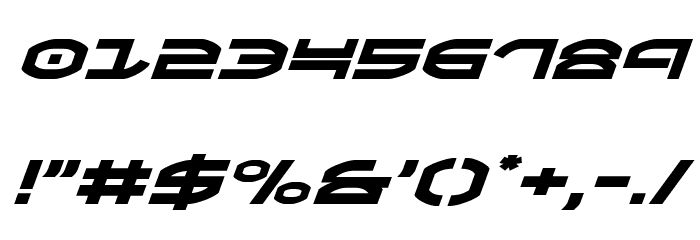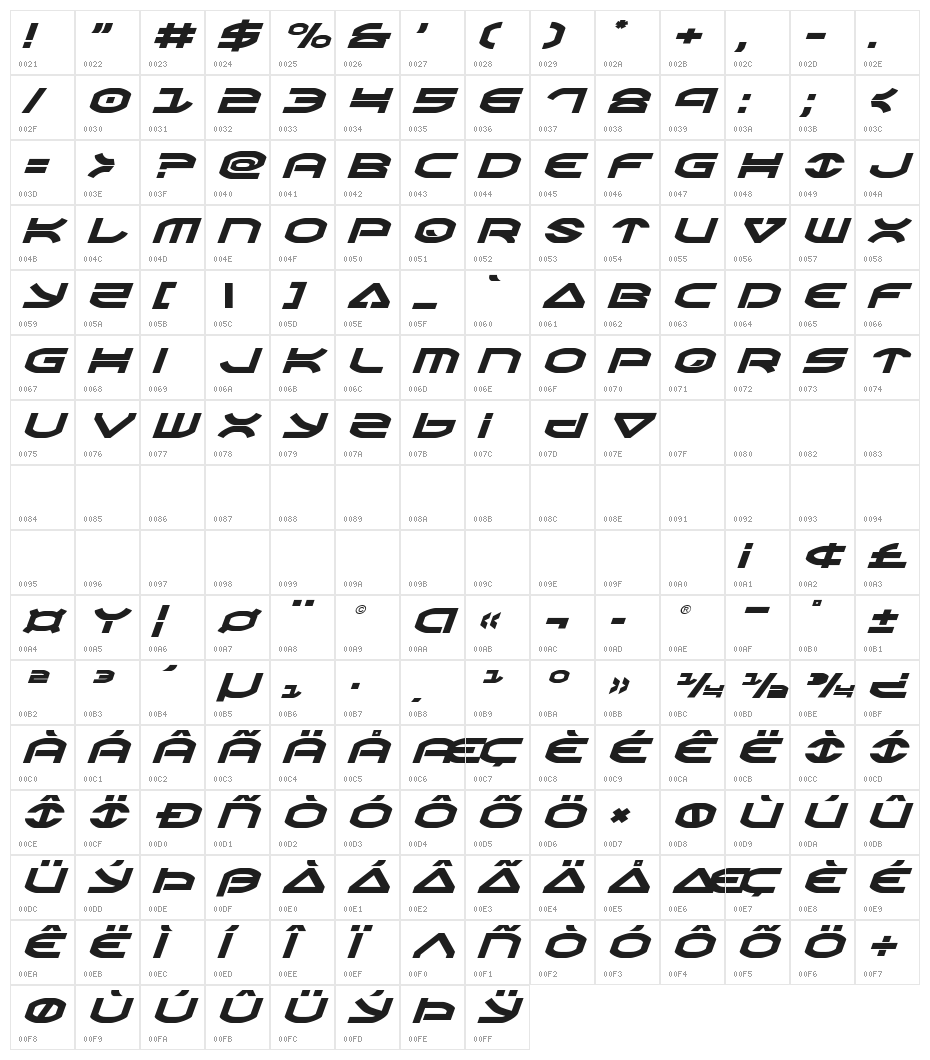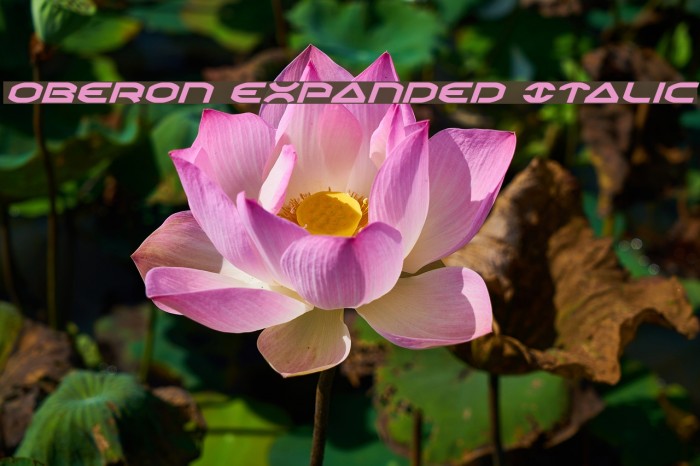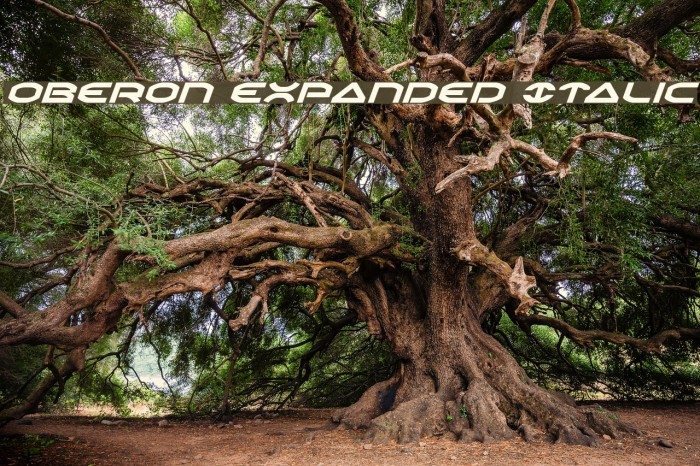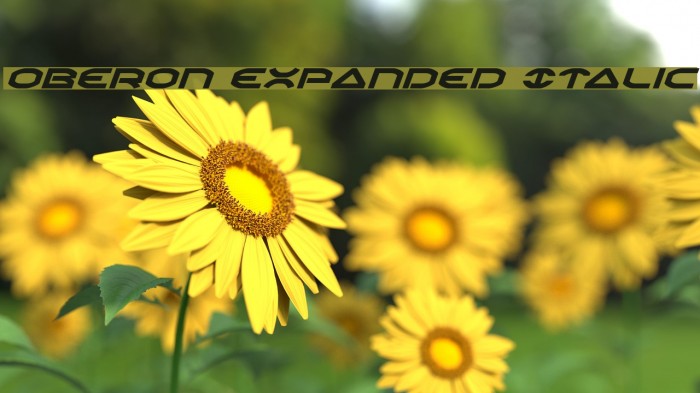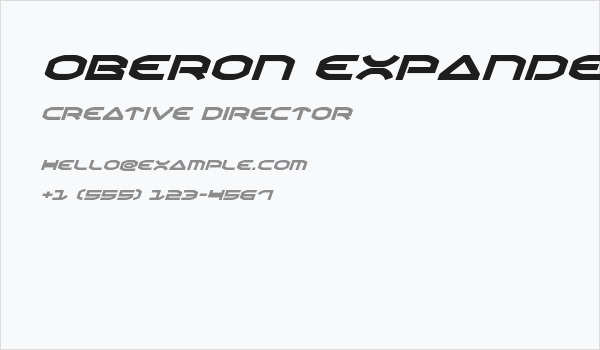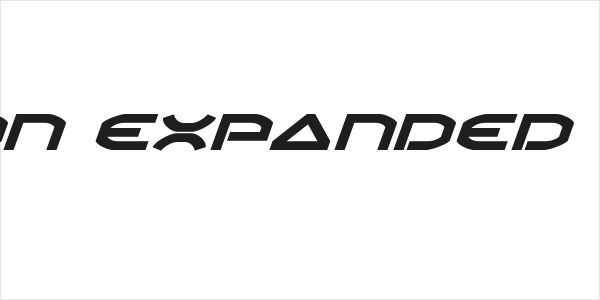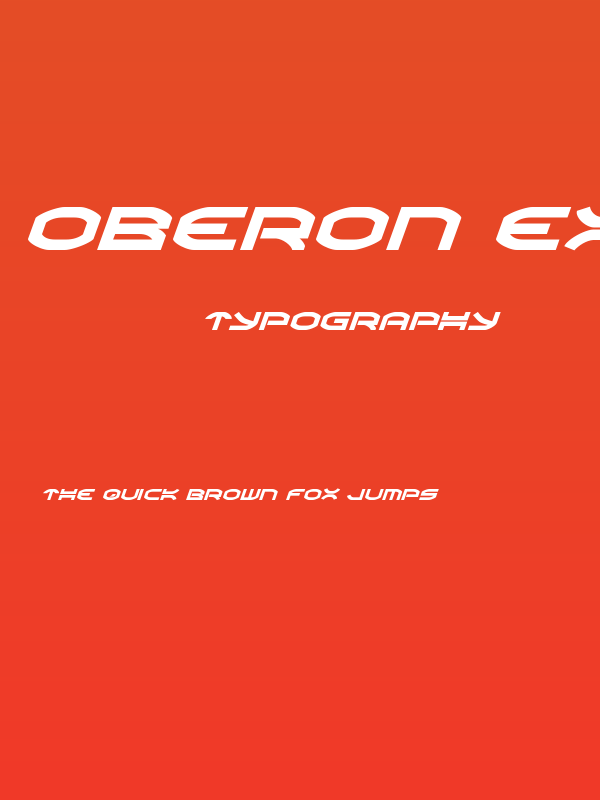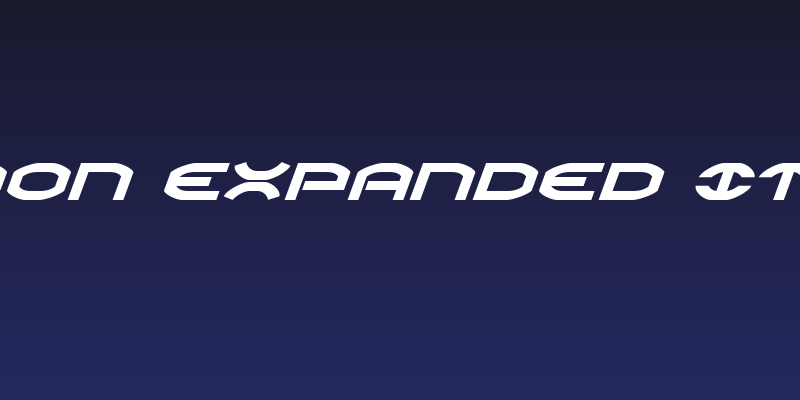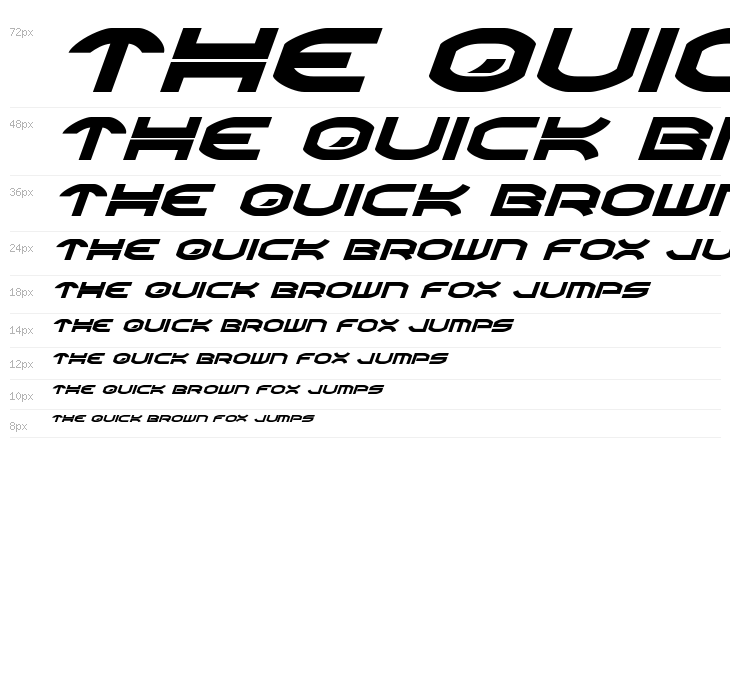
Oberon Expanded Italic Font
This font features a futuristic and dynamic design with an expanded and italicized style. The characters are bold and angular, giving a sense of motion and speed. The uppercase and lowercase letters maintain a consistent geometric form, with sharp edges and a slight slant that enhances the italic effect. The numbers and special characters follow the same design principles, ensuring uniformity across all glyphs. The font's expanded width allows for a strong visual impact, making it suitable for attention-grabbing headlines or logos. Its modern aesthetic is ideal for projects that require a contemporary and edgy look.
A bold, expanded, and italicized font with a futuristic and dynamic design.
• Proposed Projects: Ideal for sci-fi themed designs, technology branding, video game titles, and modern advertising.
• Category: Decorative/Display
• Bold: Yes
• Italic: Yes
• Weight: Bold
• Width: Expanded
• Character Spacing: Normal
• Contrast: High
• Overall Style: Modern
• Use Case: Headlines, Logos